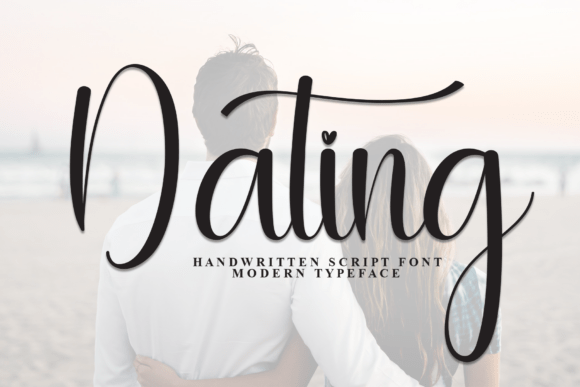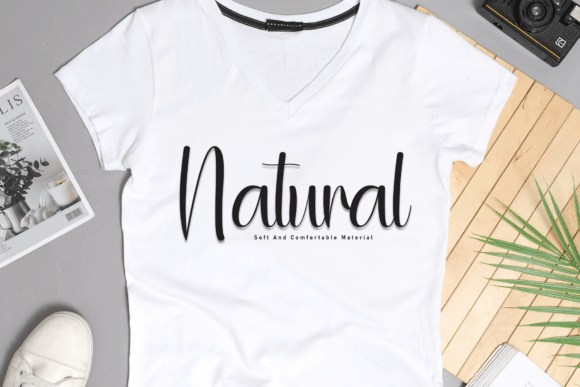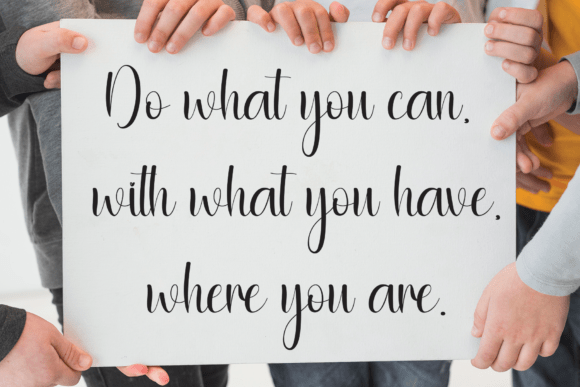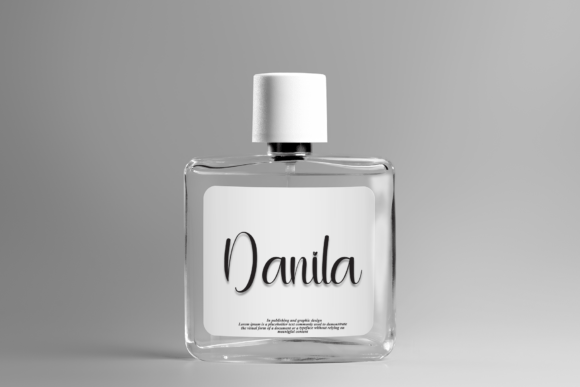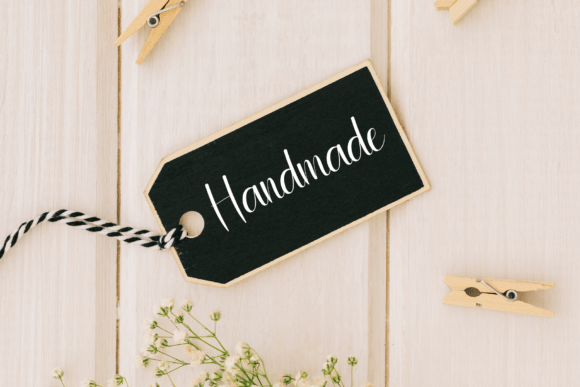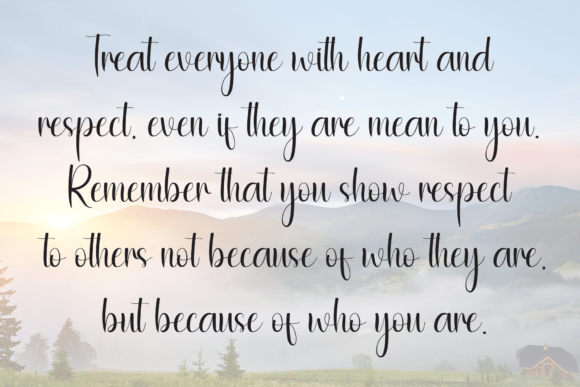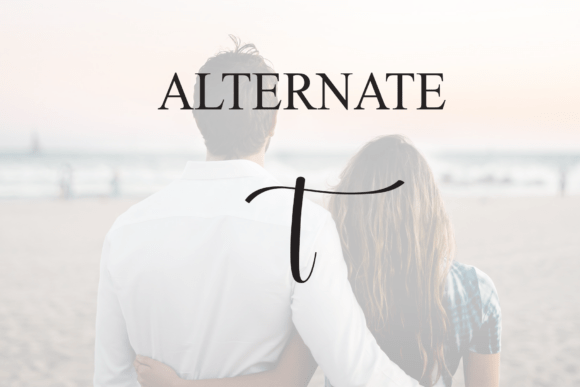
Dating Font: A Charming Invitation to Joy
As a designer, have you ever stared at a blank page, eager to infuse your creation with the perfect touch of whimsy and charm? The thrill of bringing a concept to life is a moment we all cherish, and for many of us, it’s the spark that sets our imagination ablaze.
Introducing the Dating Font – a delightful handwritten display font that embodies the sweetness and friendliness we all strive to convey. This charming typeface is designed to bring a lively touch to your wedding invites, cards, or any design project that calls for a sprinkle of joy. For designers, the Dating Font is a valuable asset, offering a unique opportunity to capture and express the cheerful essence of their creations.
With its cuteness and fun character, the Dating Font is an ideal choice for anyone looking to add a personal touch to their designs. Whether you’re a seasoned pro or just starting out, this font is sure to inspire your creativity and leave a lasting impression.
- Unique Characteristics: Dating Font features a unique blend of vintage and modern elements, with intricate details and ornate flourishes, making it perfect for romantic and nostalgic designs.
Dating Font Review
I have to say, I was really excited to dive into the Dating Font design. Here are my thoughts.
- Unique, playful vibe: The font’s mix of cursive and modern elements creates a refreshing and youthful atmosphere, perfect for dating apps and websites.
- Clear typography: The font is easy to read, even in smaller sizes, which is essential for text-heavy content.
- Creativity: The font’s design encourages users to express themselves in a fun and creative way.
- Limited flexibility: The font might not be suitable for formal or professional applications, as it’s primarily designed for casual, dating-related content.
- Not ideal for small text: While the font is clear, it can be challenging to read when used in very small sizes.
- Not as versatile as other fonts: The font’s playful nature might limit its use in more serious or complex content.
The Dating Font is a great choice for designers looking to create a fun and engaging atmosphere for dating apps or websites. While it has its limitations, its unique design and clear typography make it a solid option for casual, text-heavy content.
Tips for Getting the Most Out of Dating Font
1. Experiment with different font sizes and styles to create a unique look.
2. Use the Dating Font in combination with other design elements to create a cohesive design.
3. Consider using the Dating Font in bold or italic to add emphasis to your text.
1. Create romantic invitations or greeting cards.
2. Design a wedding website or social media post.
3. Use the Dating Font in a dating app or website design.
Alternatives to Dating Font
Pacifico is a beautiful, elegant script font that is perfect for creating a romantic and sophisticated atmosphere. It has a relaxed feel and is ideal for wedding invitations, love letters, or any other design that requires a touch of romance. Compared to Dating Font, Pacifico is more refined and less playful, making it suitable for more formal occasions.